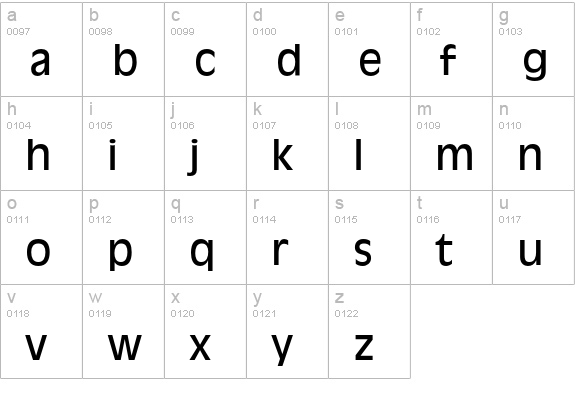
12 Antique Olive** Roman 05008 Font Details
The Antique Olive Roman 05008 font is a timeless and elegant typeface that exudes sophistication and charm. Its classic Roman design is perfect for adding a touch of refinement to any project. With its clean lines and graceful curves, this font is ideal for a wide range of applications, from wedding invitations to business cards. What sets the Antique Olive Roman 05008 font apart is its versatility and timelessness. Whether you're looking to create a vintage-inspired design or a modern and sleek aesthetic, this font has you covered. Its understated elegance and classic appeal make it a great choice for any project. Best of all, the Antique Olive Roman 05008 font is available for free download at FontsMarket.com. This means you can easily access this beautiful typeface and use it in your designs without any cost. Don't miss out on the opportunity to enhance your projects with this stunning font – download it today and elevate your design work to new heights!